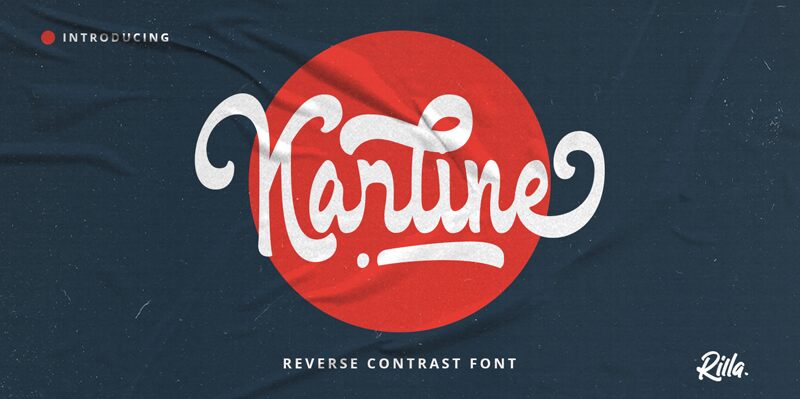
Karline, the handwritten font by Rillatype is a perfect blend of elegance and simplicity. With its condensed width, Karline adds a touch of sophistication to any project without taking up too much space. This versatile font is suitable for a variety of projects such as wedding invitations, logos, greeting cards, and more. Its unique style gives an authentic handwritten feel while maintaining readability. Use Karline's semi-bold typeface to make your headlines stand out or its regular weight for body text. With Karline, you can add a personal touch to any design project!